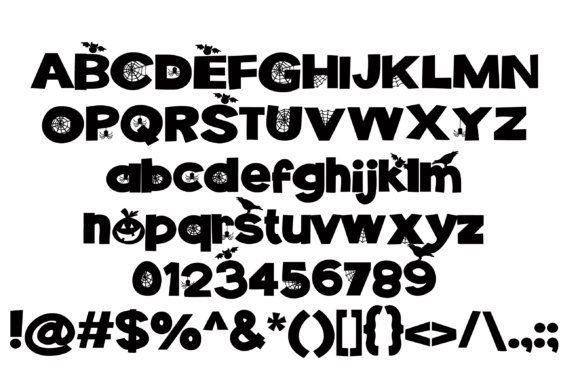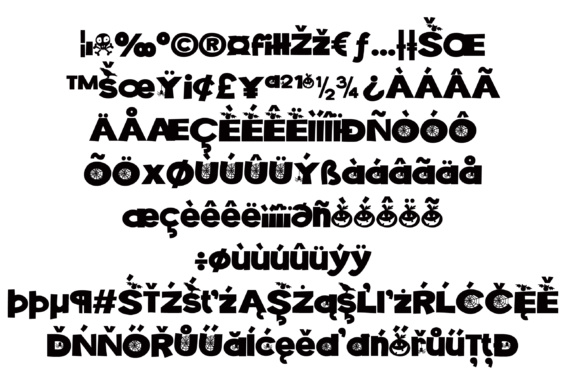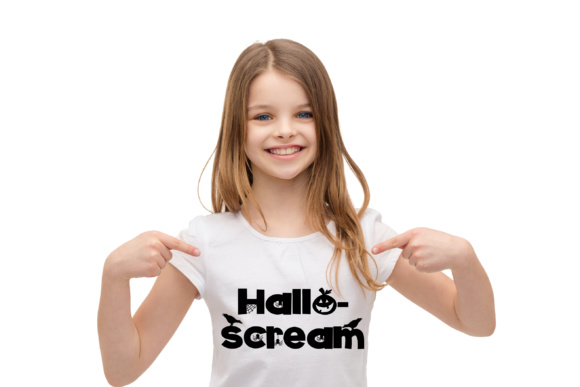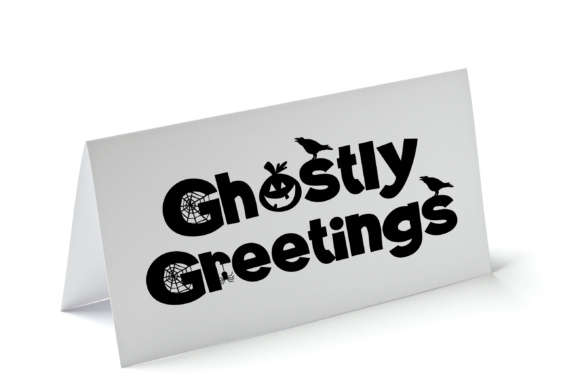
Batabulous Font: The Ultimate Halloween Treat for Designers and Crafters
Are you ready to add a spook-tacular touch to your designs and crafts? Look no further than the Batabulous Font, a delightful Halloween-themed font that’s sure to cast a spell on your audience. This adorable font features an adorable jack-o-lantern for the “O” and a skull for the bullet, as well as many sporting Halloween-themed silhouettes throughout.
What Makes Batabulous Font So Special?
Batabulous Font is a one-of-a-kind font that’s perfect for designers and crafters who want to add a touch of Halloween magic to their projects. The font’s unique characters, including the jack-o-lantern and skull, are sure to make your designs stand out from the crowd. Whether you’re creating invitations, decorations, or DIY crafts, Batabulous Font is the perfect choice.
Halloween-themed Silhouettes Galore
One of the best things about Batabulous Font is the abundance of Halloween-themed silhouettes throughout. From bats and ghosts to pumpkins and skeletons, this font has everything you need to create spooky and fun designs. The silhouettes are intricately designed and add a level of detail that’s hard to find in other fonts.
Ideas for Using Batabulous Font
So, how can you use Batabulous Font in your designs and crafts? Here are a few ideas to get you started:
- Create spooky invitations for Halloween parties or events
- Design custom decorations, such as garlands or banners, for your home or office
- Make DIY crafts, such as cards or gift tags, for friends and family
- Develop a Halloween-themed branding campaign for your business
- Design custom Halloween-themed merchandise, such as t-shirts or mugs
Tips for Getting the Most Out of Batabulous Font
To get the most out of Batabulous Font, here are a few tips:
- Experiment with different font sizes and styles to create a unique look
- Combine Batabulous Font with other Halloween-themed elements, such as images or graphics, to create a cohesive design
- Use the font’s Halloween-themed silhouettes to add visual interest to your designs
- Don’t be afraid to get creative and try new things – Batabulous Font is all about having fun and being spooky!